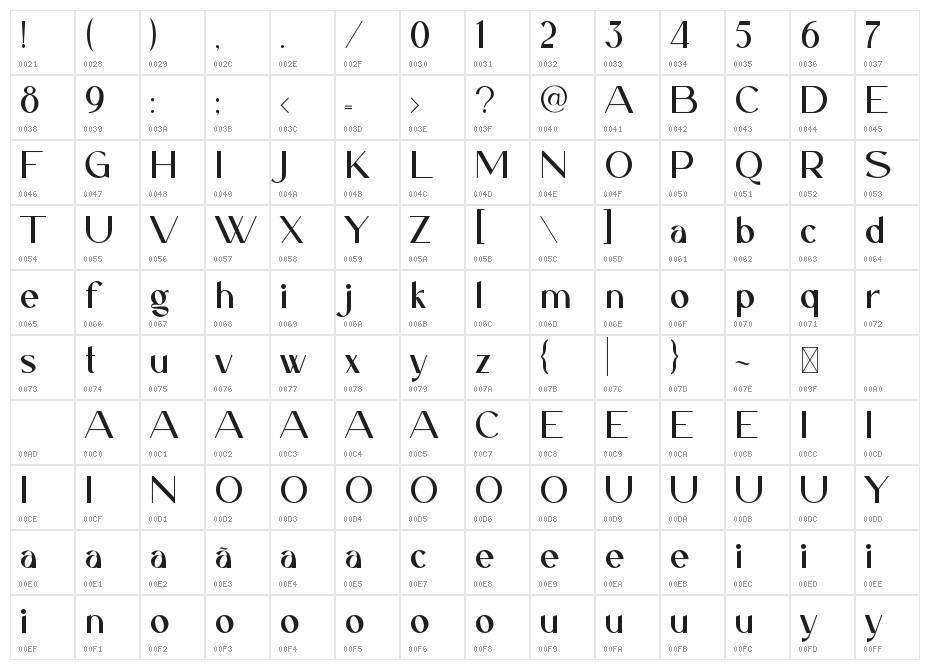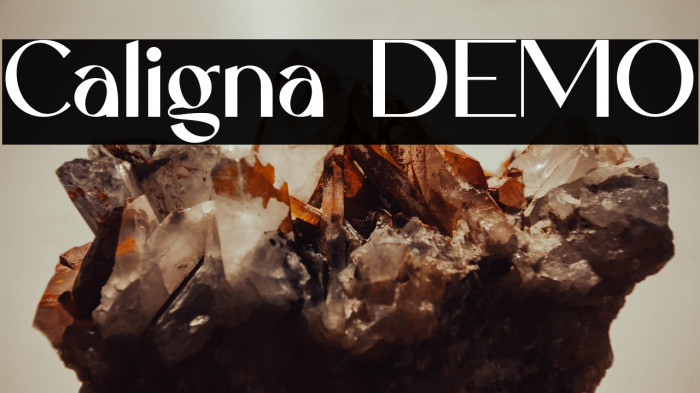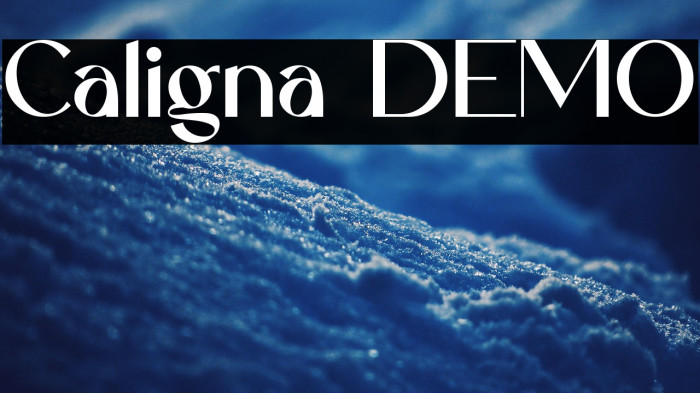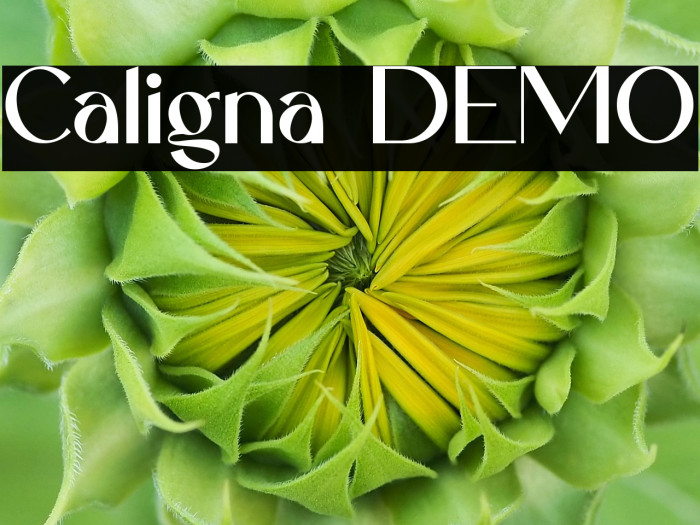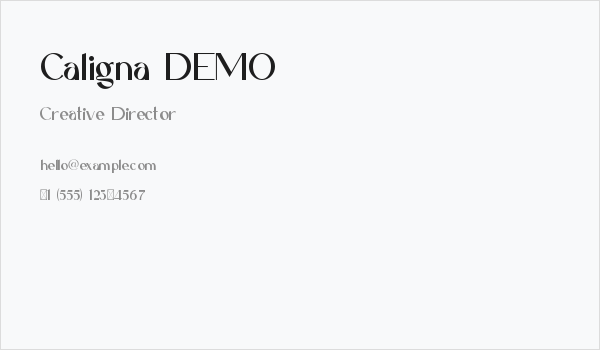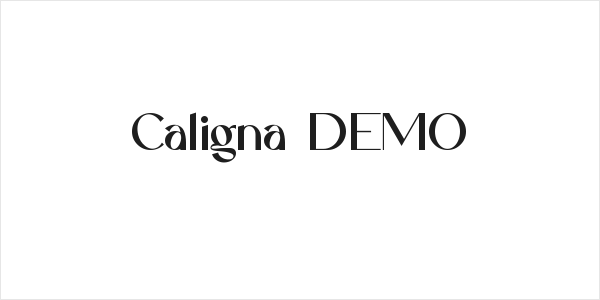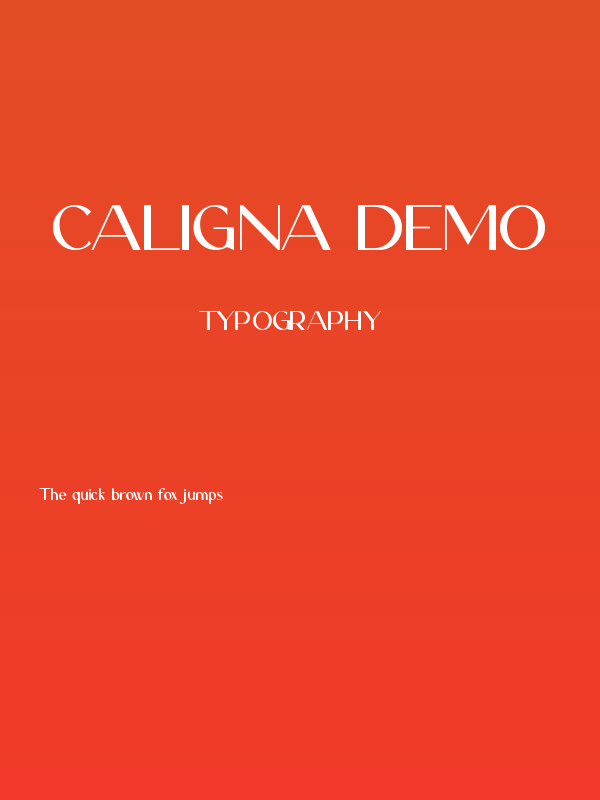
Caligna DEMO Font
Caligna DEMO Description
This font exhibits a modern and elegant style with a high contrast between thick and thin strokes, giving it a sophisticated appearance. The uppercase letters are characterized by sharp, clean lines and a geometric structure, while the lowercase letters maintain a smooth, flowing form that complements the overall design. The numerals are distinct and clear, ensuring readability. Special characters are crafted with precision, adding to the font's versatility. The combination of these elements makes it suitable for a variety of design applications.